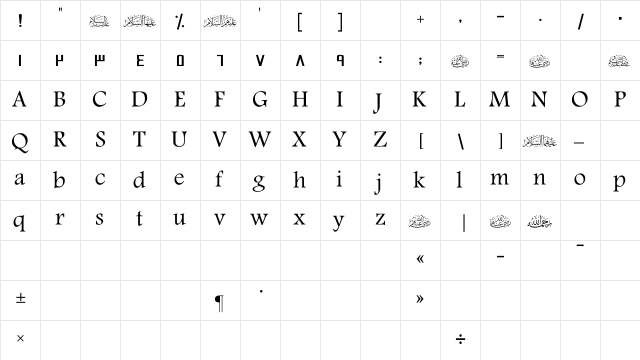
SC_AMEEN REGULAR
Design Context for SC_AMEEN Typeface
SC_AMEEN is a composed and adaptable typeface that performs quietly and consistently across a wide range of design contexts.